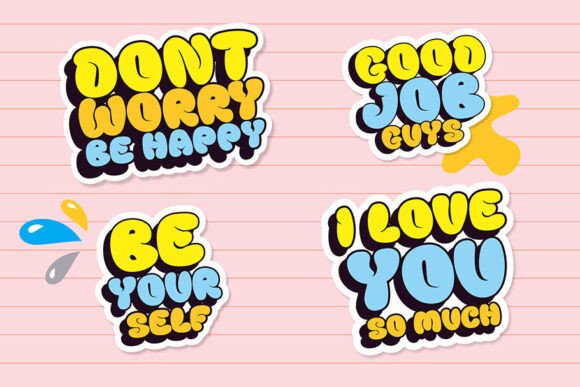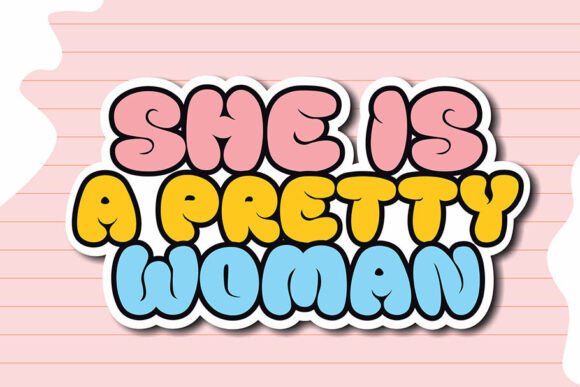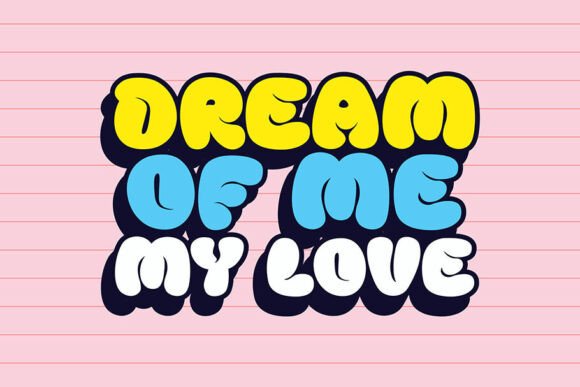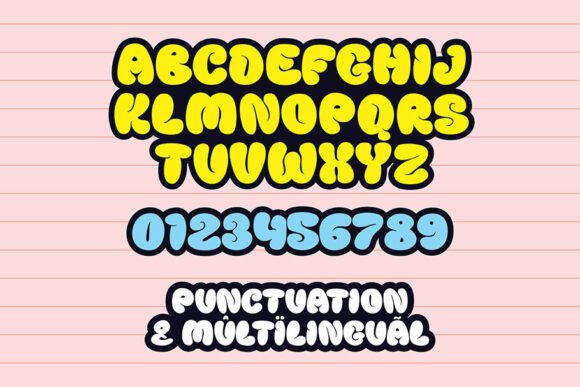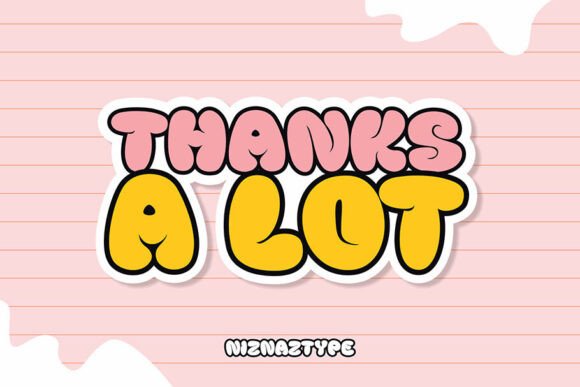
Coco Milk Font: The Ultimate Display Font for Creative Designs
Are you tired of using the same old fonts in your designs? Do you want to add a touch of whimsy and playfulness to your creative projects? Look no further than the Coco Milk Font! This adorable display font is sure to bring a smile to your face and make your designs stand out from the crowd.
What is Coco Milk Font?
Coco Milk Font is a cute and quirky display font that is perfect for adding a joyful touch to your designs. With its unique and playful style, this font is sure to capture the attention of your audience and leave a lasting impression. Whether you’re a designer, crafter, or DIY enthusiast, Coco Milk Font is a must-have addition to your font collection.
Features of Coco Milk Font
- Cute and Quirky Design: Coco Milk Font features a unique and playful design that is sure to add a touch of whimsy to your designs.
- Display Font: This font is specifically designed as a display font, making it perfect for headlines, titles, and other creative projects.
- Easy to Read: Despite its playful design, Coco Milk Font is easy to read and understand, making it perfect for use in a variety of creative projects.
- Versatile: Coco Milk Font can be used in a variety of creative projects, from digital designs to print materials.
Benefits of Using Coco Milk Font
So why should you use Coco Milk Font in your designs? Here are just a few benefits of using this amazing display font:
- Adds a Touch of Whimsy: Coco Milk Font adds a touch of whimsy and playfulness to your designs, making them more engaging and fun to look at.
- Stand Out from the Crowd: With its unique and playful design, Coco Milk Font is sure to make your designs stand out from the crowd.
- Perfect for Creative Projects: This font is perfect for use in a variety of creative projects, from digital designs to print materials.
Who Can Use Coco Milk Font?
Coco Milk Font is perfect for a variety of designers and crafters, including:
- Graphic Designers: Graphic designers can use Coco Milk Font in a variety of creative projects, from digital designs to print materials.
- Digital Artists: Digital artists can use Coco Milk Font to add a touch of whimsy and playfulness to their digital art.
- Crafters: Crafters can use Coco Milk Font to add a personal touch to their handmade projects.
- DIY Enthusiasts: DIY enthusiasts can use Coco Milk Font to add a touch of personality to their DIY projects.
In conclusion, Coco Milk Font is a cute and quirky display font that is perfect for adding a joyful touch to your designs. With its unique and playful style, this font is sure to capture the attention of your audience and leave a lasting impression. Whether you’re a designer, crafter, or DIY enthusiast, Coco Milk Font is a must-have addition to your font collection. So why wait? Download Coco Milk Font today and start adding a touch of whimsy to your designs!